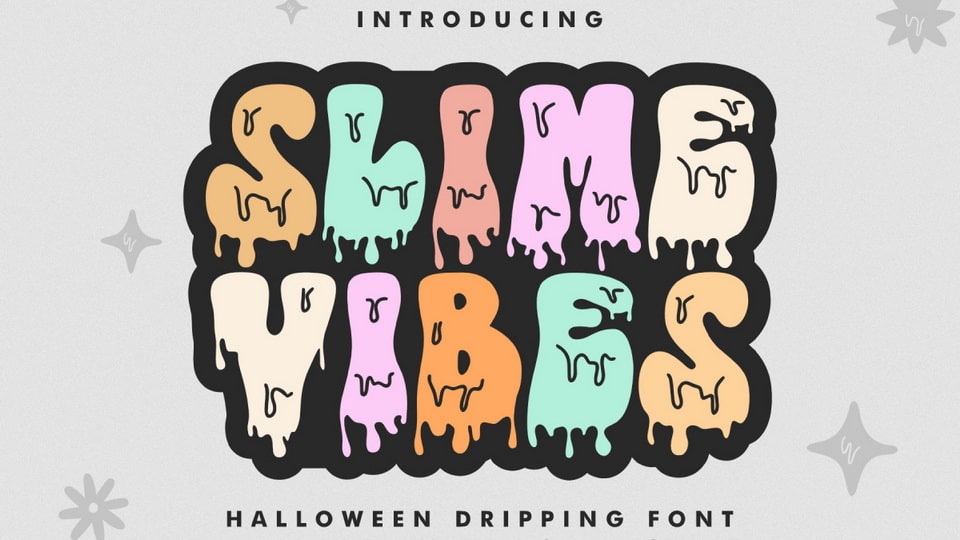
Download Slime Vibes font, a display typeface where Halloween meets grooviness! This dripping and quirky font adds a playful twist to your designs, making them ooze with fun and spooky vibes.